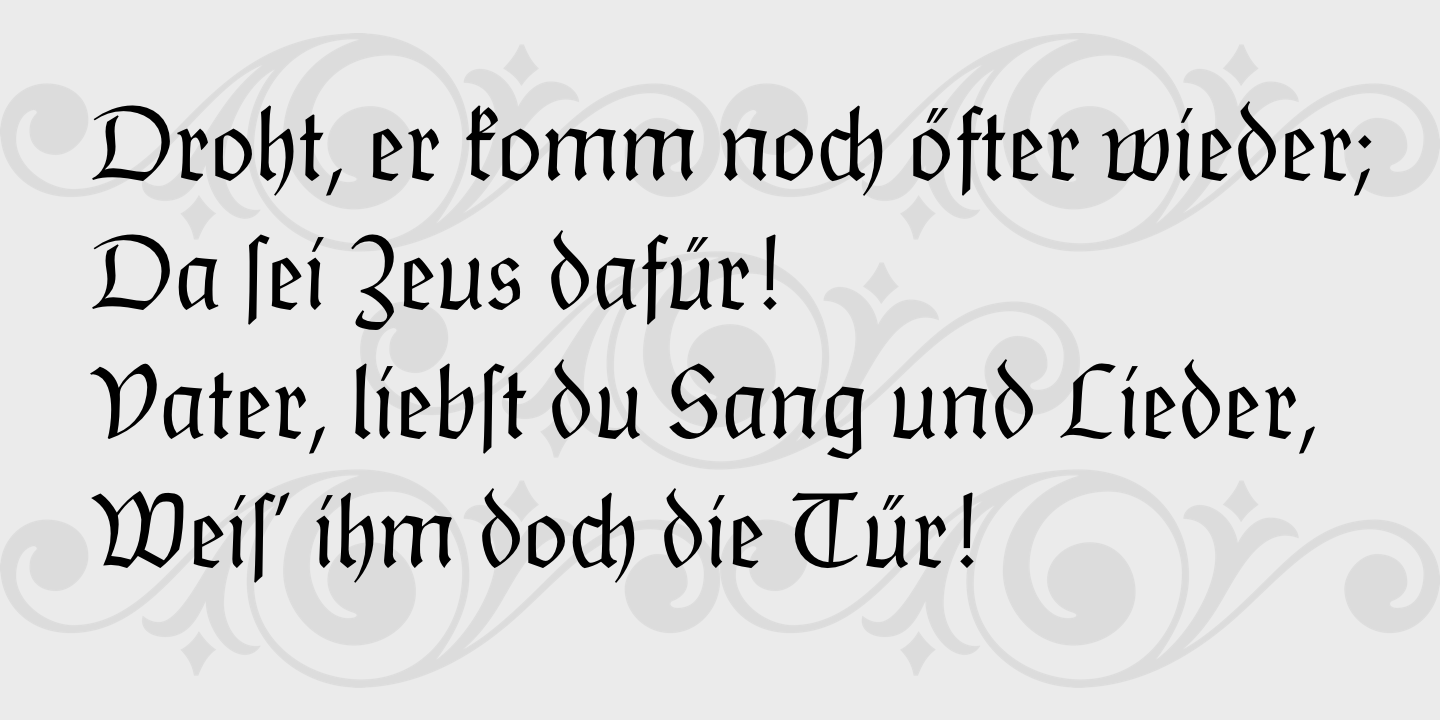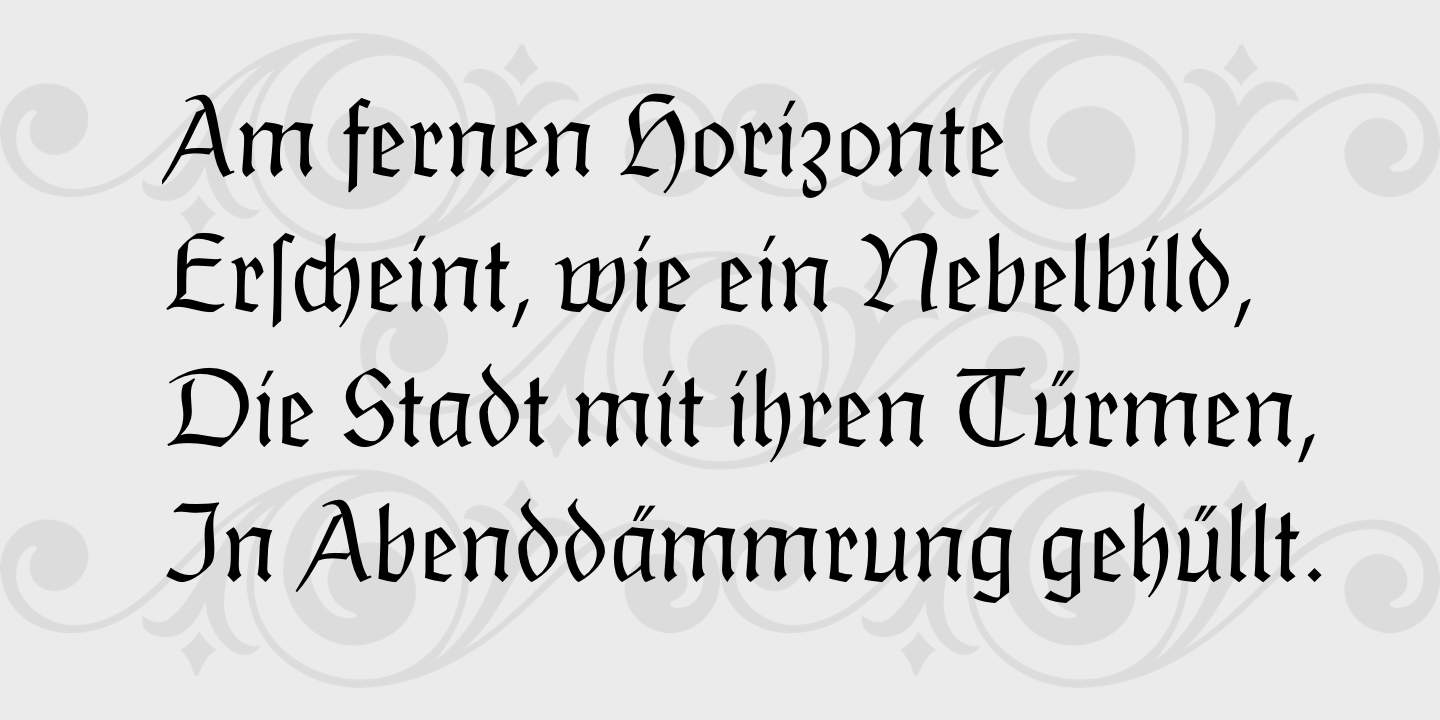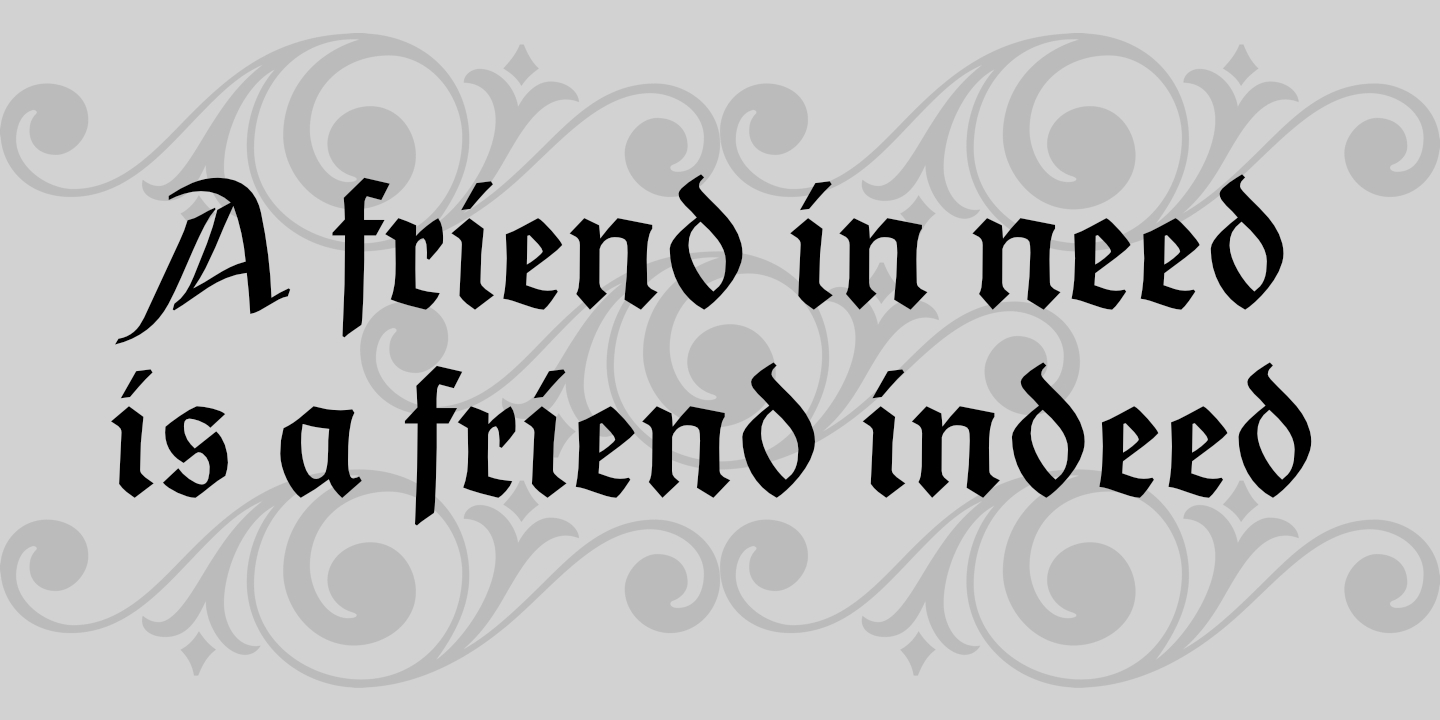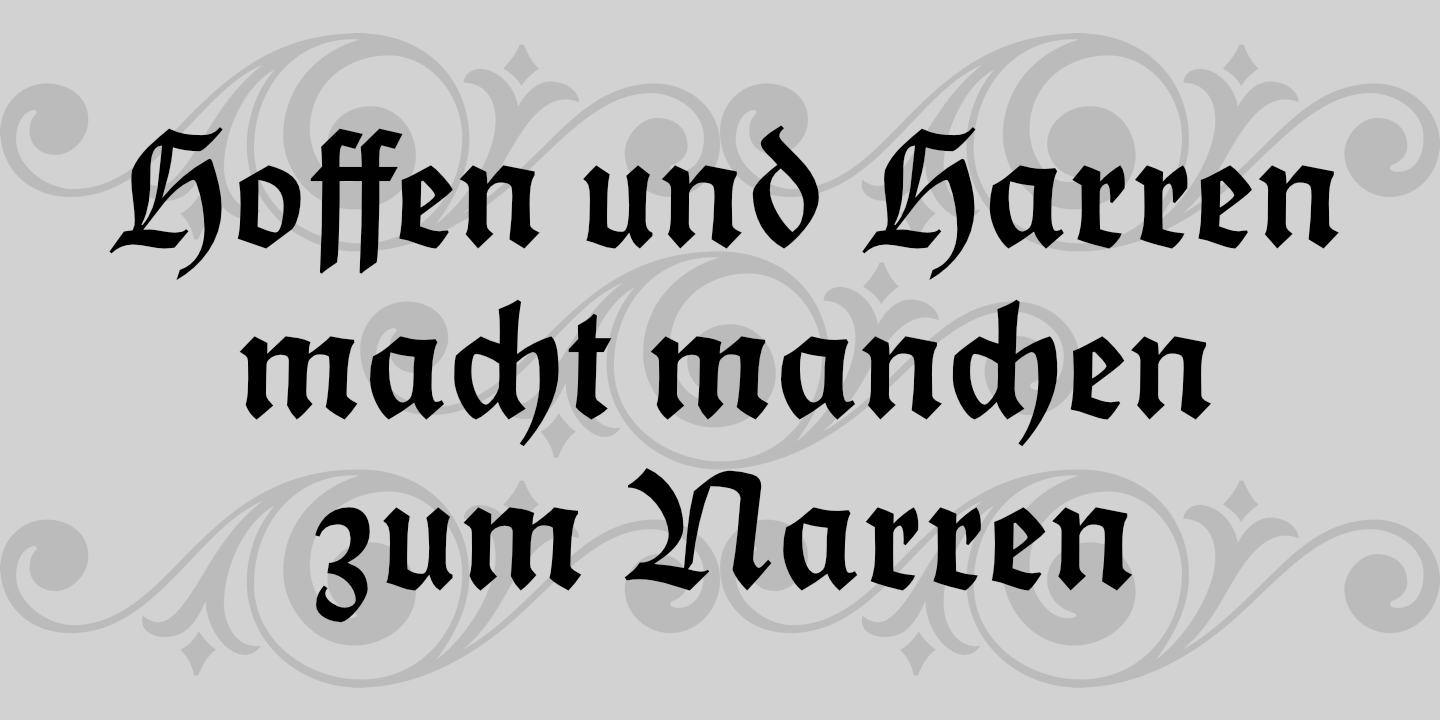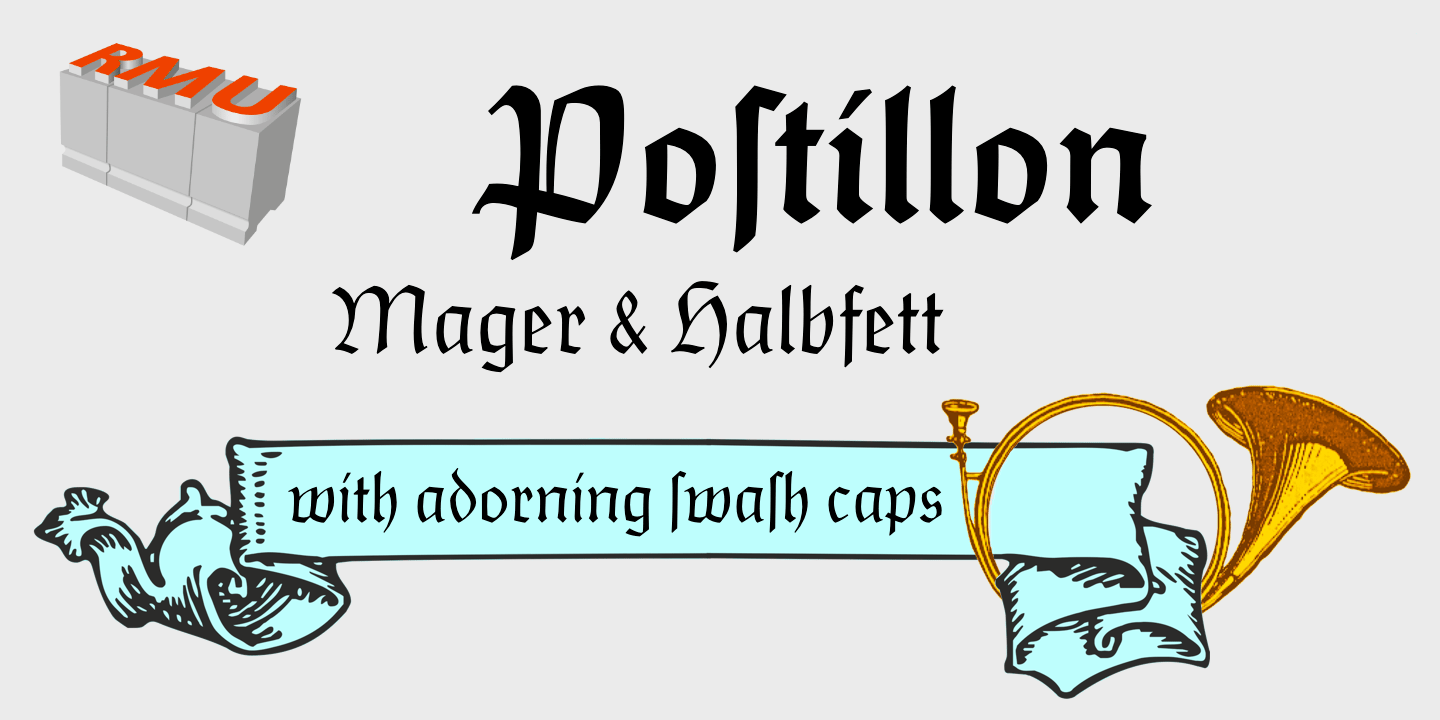
German teacher and professor of almost all of the book arts, including printing, lettering, calligraphy, and type design. His type designs, all exhibiting a characteristic primitivism, were for Berthold.